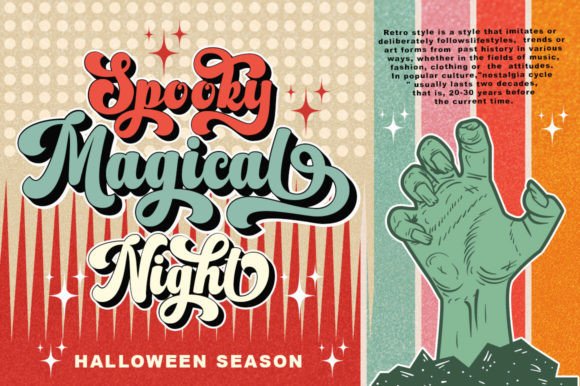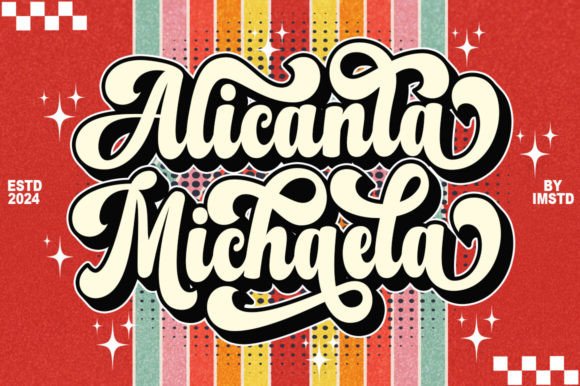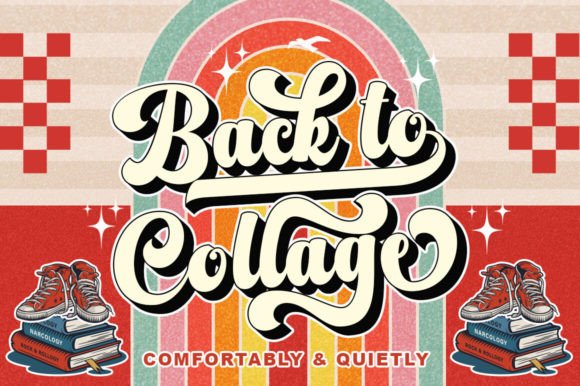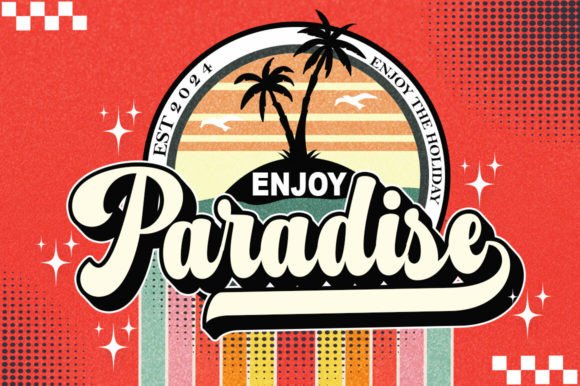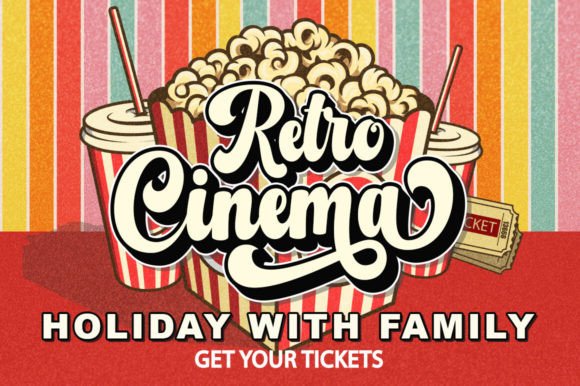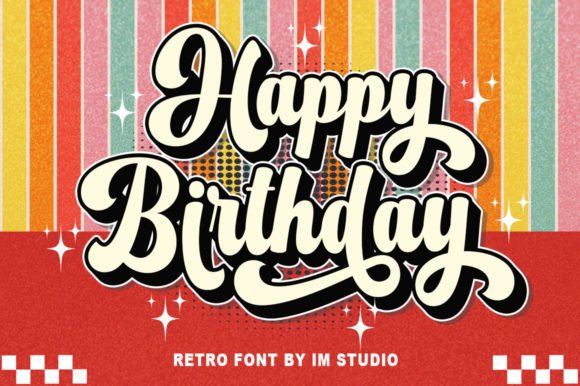
Michaela Font
Michaela Display Duo is delightfully nostalgic and delivers a great display font. Use this display font to add a special retro touch to any design idea you can think of! Expertly designed to be a true favorite, this font has the potential to take your every creative idea to the next level!